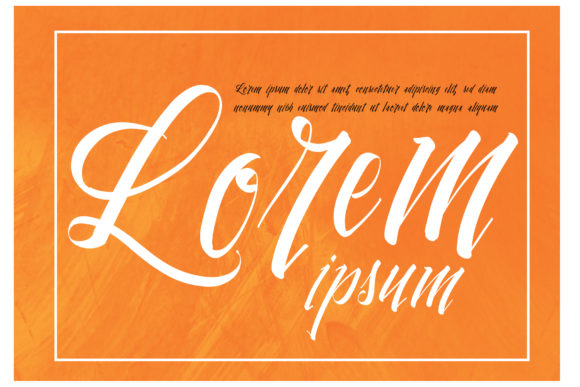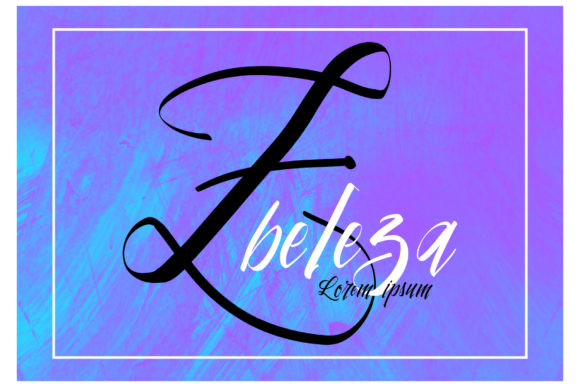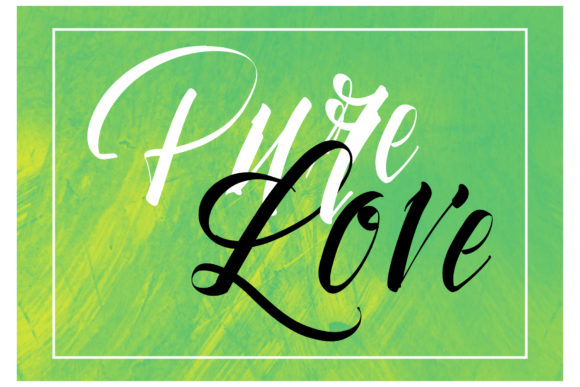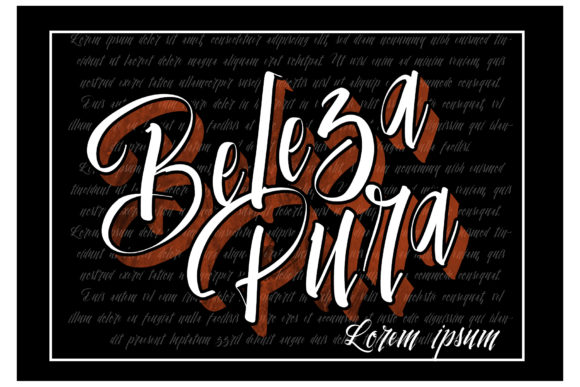
Discover the Elegance of Beleza Pura Font: Elevate Your Designs with a Timeless Handwritten Touch
In the world of typography, few fonts manage to capture the essence of elegance and sophistication as beautifully as the Beleza Pura font. This incredibly distinct, delicate, and timeless handwritten font has been making waves in the design community, and for good reason. Beleza Pura is not just a font; it’s a statement piece that can transform any design into a masterpiece of elegance and charm.
The Charm of Beleza Pura
Beleza Pura’s unique charm lies in its delicate strokes and classic appeal. It’s a font that exudes a sense of refinement and luxury, making it the perfect choice for designs that require a touch of sophistication. Whether you’re working on wedding invitations, thank you cards, quotes, greeting cards, logos, or business cards, Beleza Pura brings a level of elegance that is hard to match.
One of the standout features of Beleza Pura is its versatility. This font is not limited to a specific type of design; rather, it can be used across a wide range of projects. Here are some of the ways you can use Beleza Pura to elevate your designs:
- Wedding Invitations: Add a touch of romance and elegance to your wedding invitations with Beleza Pura. Its delicate strokes and classic appeal make it perfect for formal and informal wedding themes.
- Thank You Cards: Express gratitude in style with Beleza Pura. This font adds a personal touch to thank you cards, making them more meaningful and heartfelt.
- Quotes: Beleza Pura is ideal for typography quotes. Its elegant strokes bring quotes to life, making them perfect for sharing on social media or including in blogs and websites.
- Greeting Cards: From birthday wishes to holiday greetings, Beleza Pura adds a touch of sophistication to all types of greeting cards.
- Logos: For businesses that want to convey elegance and luxury, Beleza Pura can be a great choice for logos. Its unique and memorable appearance can help brands stand out.
- Business Cards: Make a lasting impression with Beleza Pura on your business cards. This font’s professional yet elegant look is perfect for entrepreneurs and businesses aiming to project a refined image.
Why Designers and Crafters Love Beleza Pura
Beleza Pura has quickly become a favorite among designers and crafters for several reasons:
- Ease of Use: Despite its elegant appearance, Beleza Pura is surprisingly easy to use, even for those who are new to design. It works well in various design software, making it accessible to a wide range of users.
- Customization: Beleza Pura can be easily customized to fit the specific needs of your project. Whether you want to adjust the size, color, or add effects, this font adapts beautifully.
- Unique Appeal: In a sea of generic fonts, Beleza Pura stands out. Its unique appeal can help your designs get noticed, whether you’re working on personal projects or client work.
Tips for Using Beleza Pura Effectively
To make the most of Beleza Pura, here are a few tips:
- Pair with Complementary Fonts: While Beleza Pura is stunning on its own, it can also be paired with other fonts for added contrast. Choose fonts that complement its elegance without overpowering it.
- Play with Colors: Beleza Pura looks beautiful in a variety of colors. Experiment with different hues to find the perfect match for your design.
- Experiment with Sizes: Don’t be afraid to experiment with different sizes. Beleza Pura’s delicate strokes look great in both large and small sizes, making it versatile for various design elements.
| Author | VTKS Design |
Beleza Pura is more than just a font; it’s a design element that can elevate your projects to new heights of elegance and sophistication. Its versatility, unique charm, and ease of use make it a valuable addition to any designer’s toolkit. Whether you’re working on wedding invitations, logos, or greeting cards, Beleza Pura is sure to bring a touch of timeless elegance to your designs. Discover the beauty of Beleza Pura today and transform your designs with its delicate, timeless appeal.